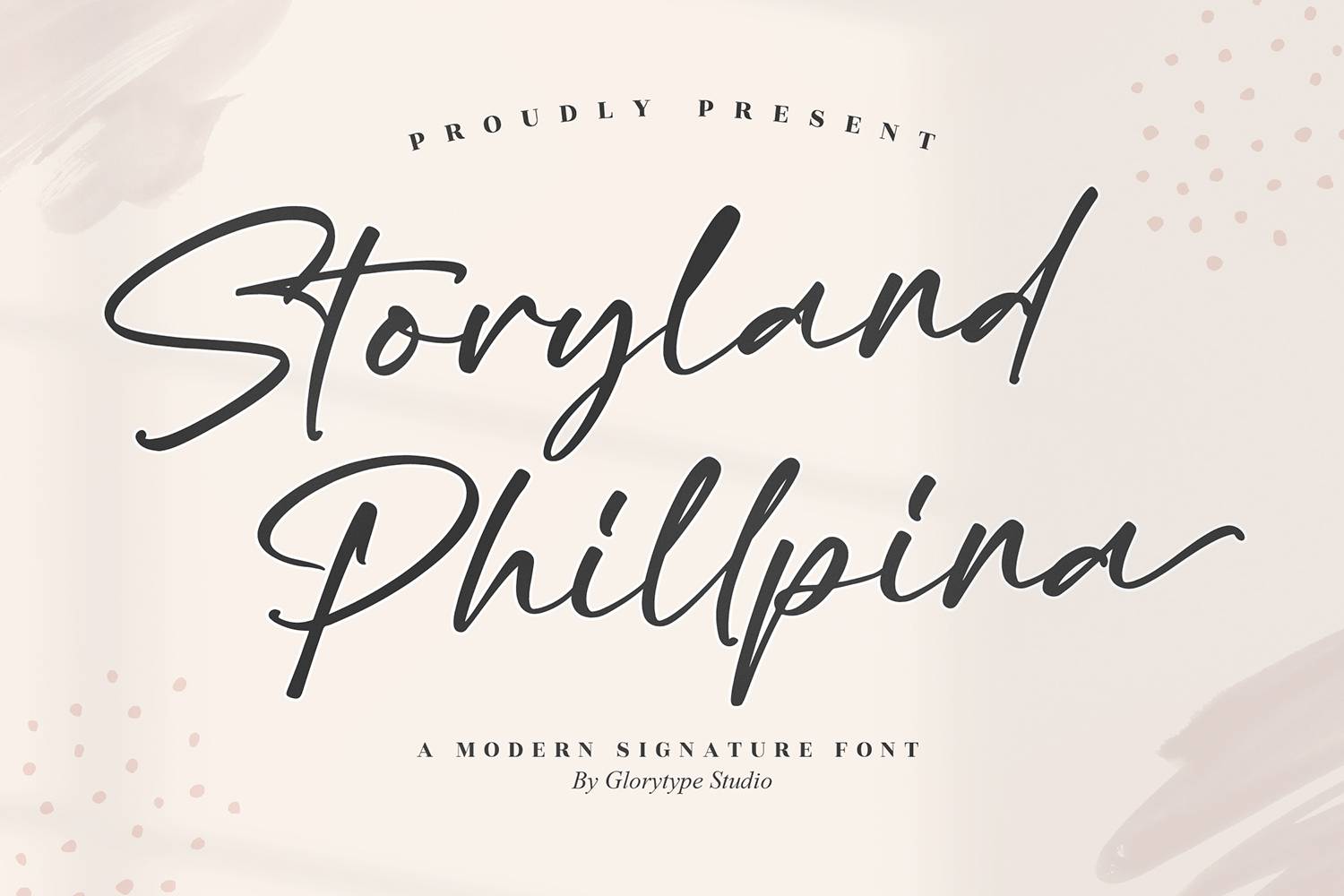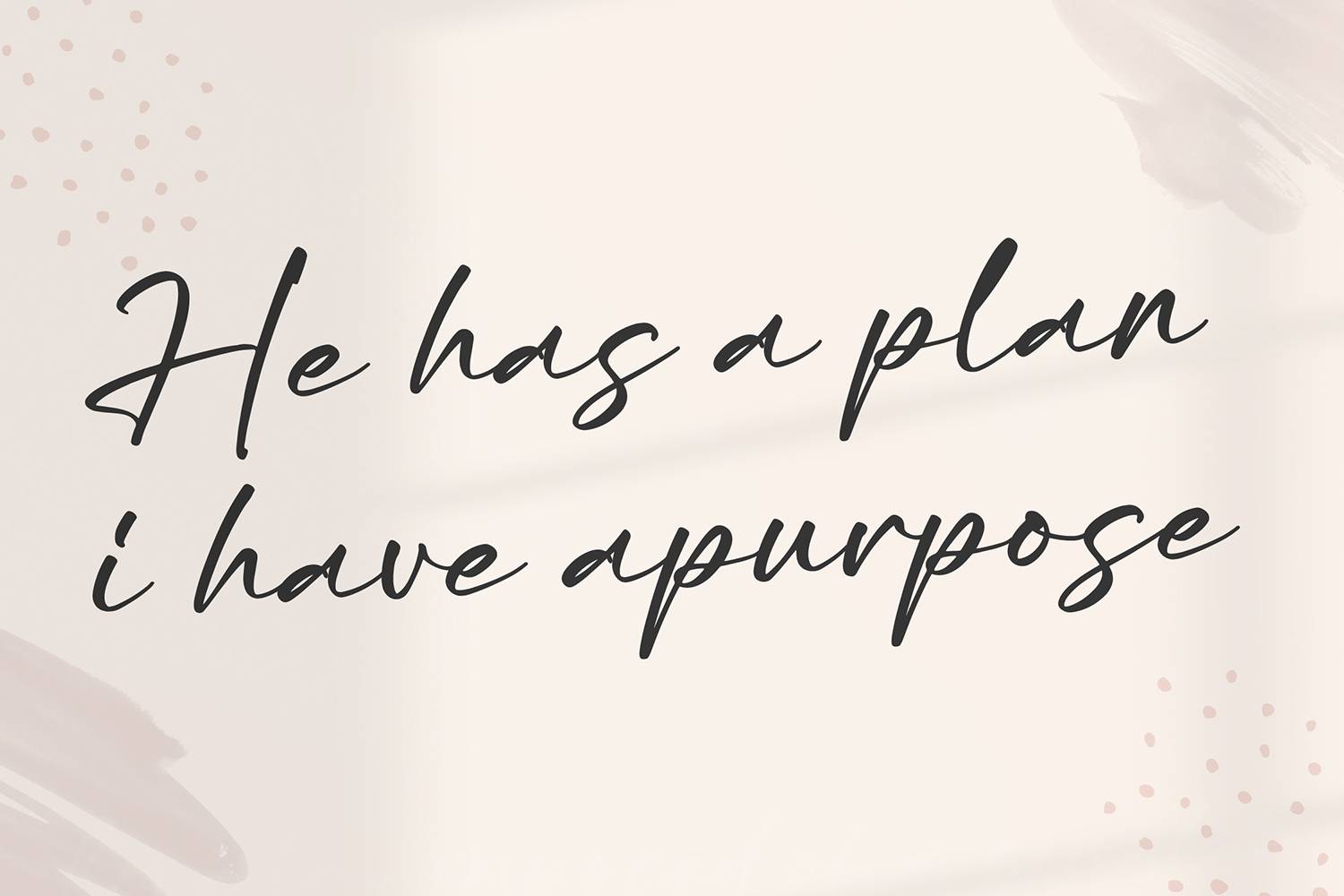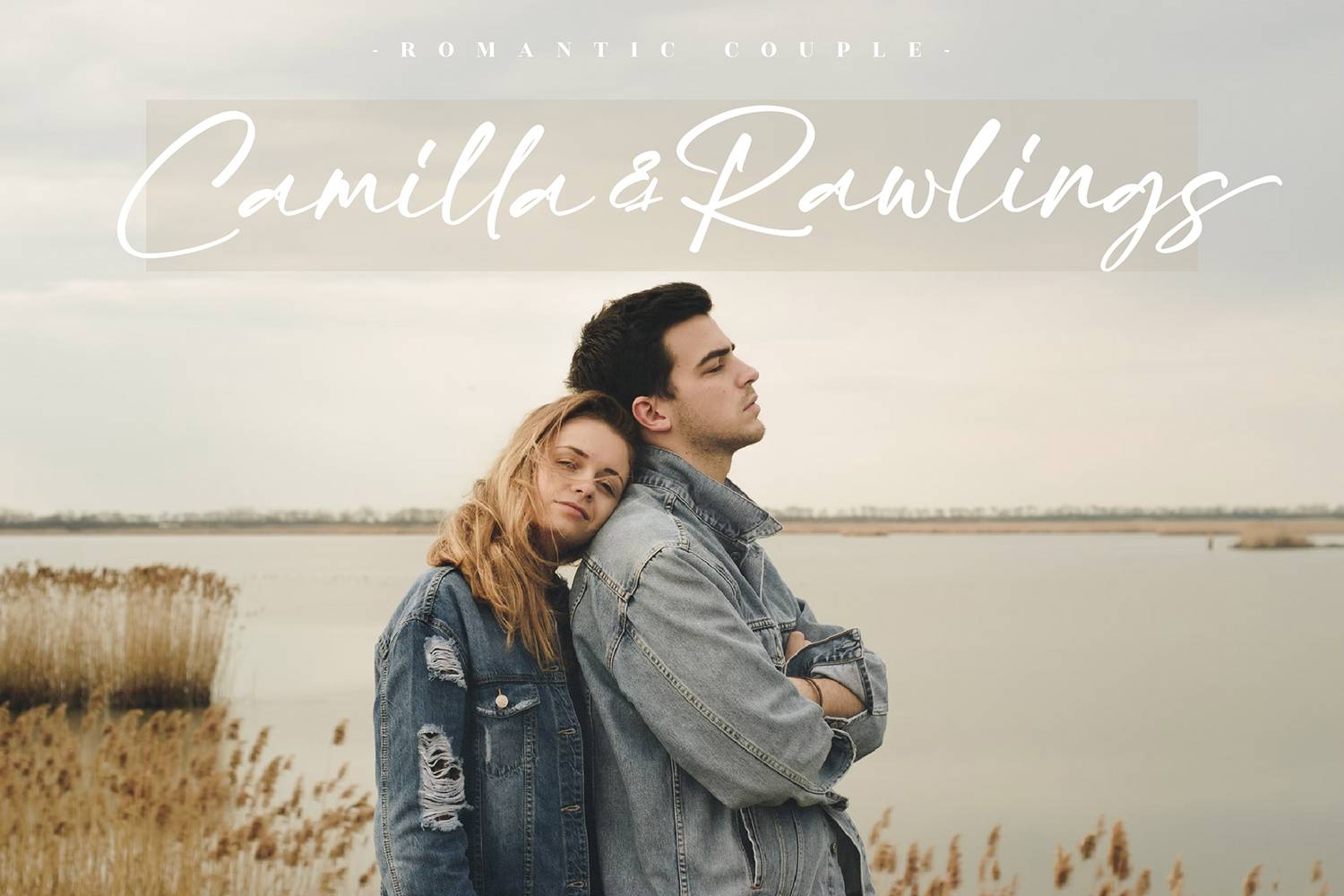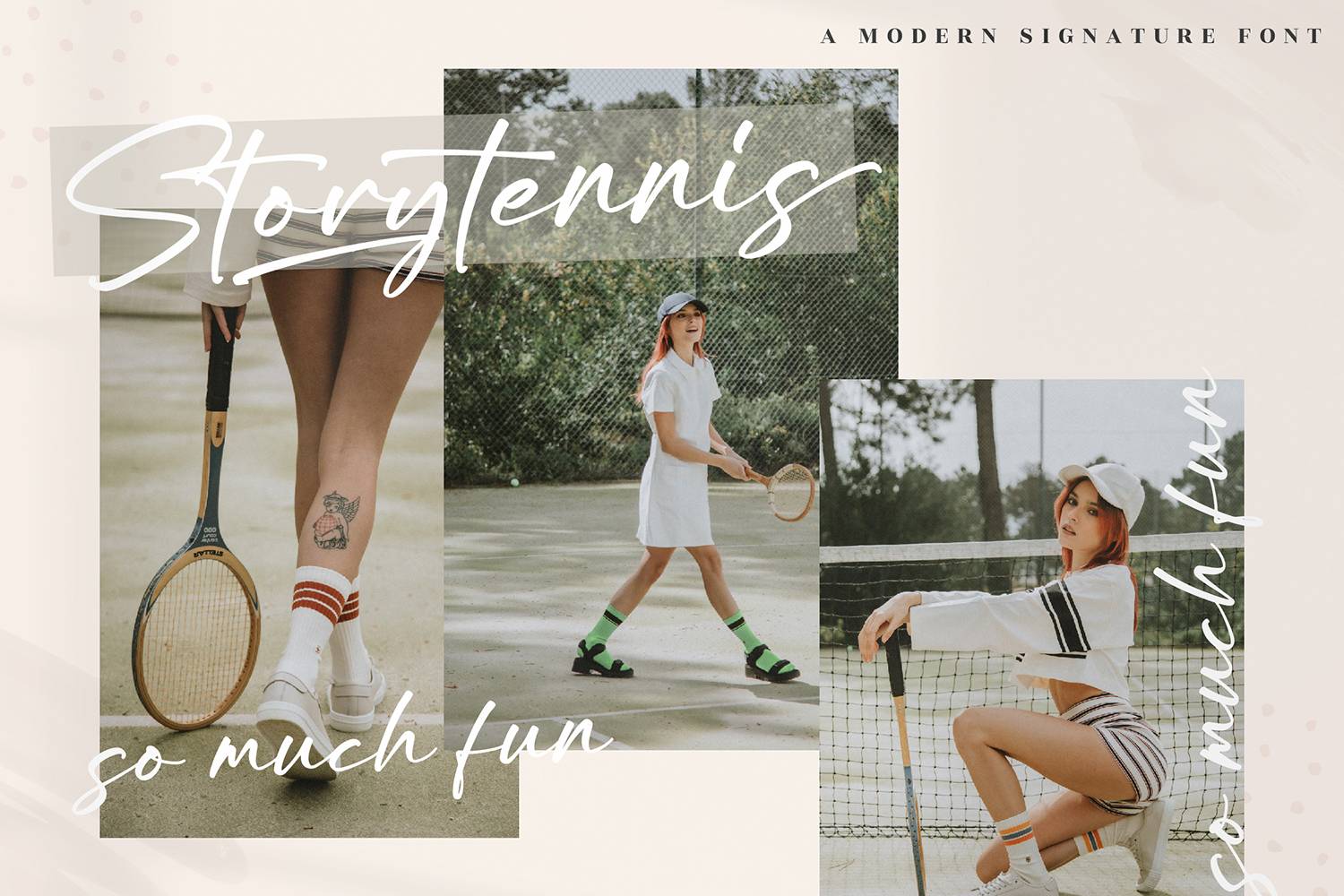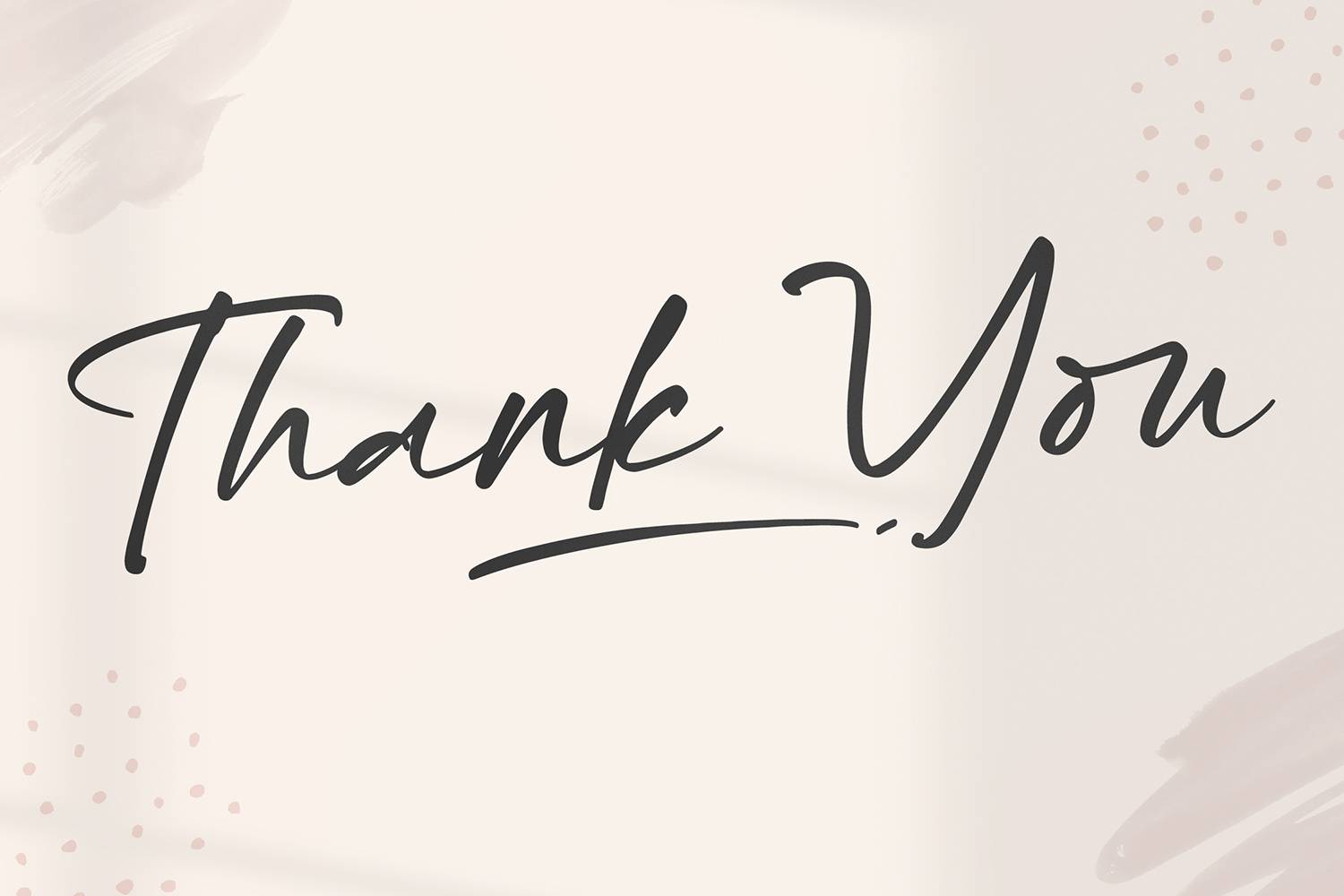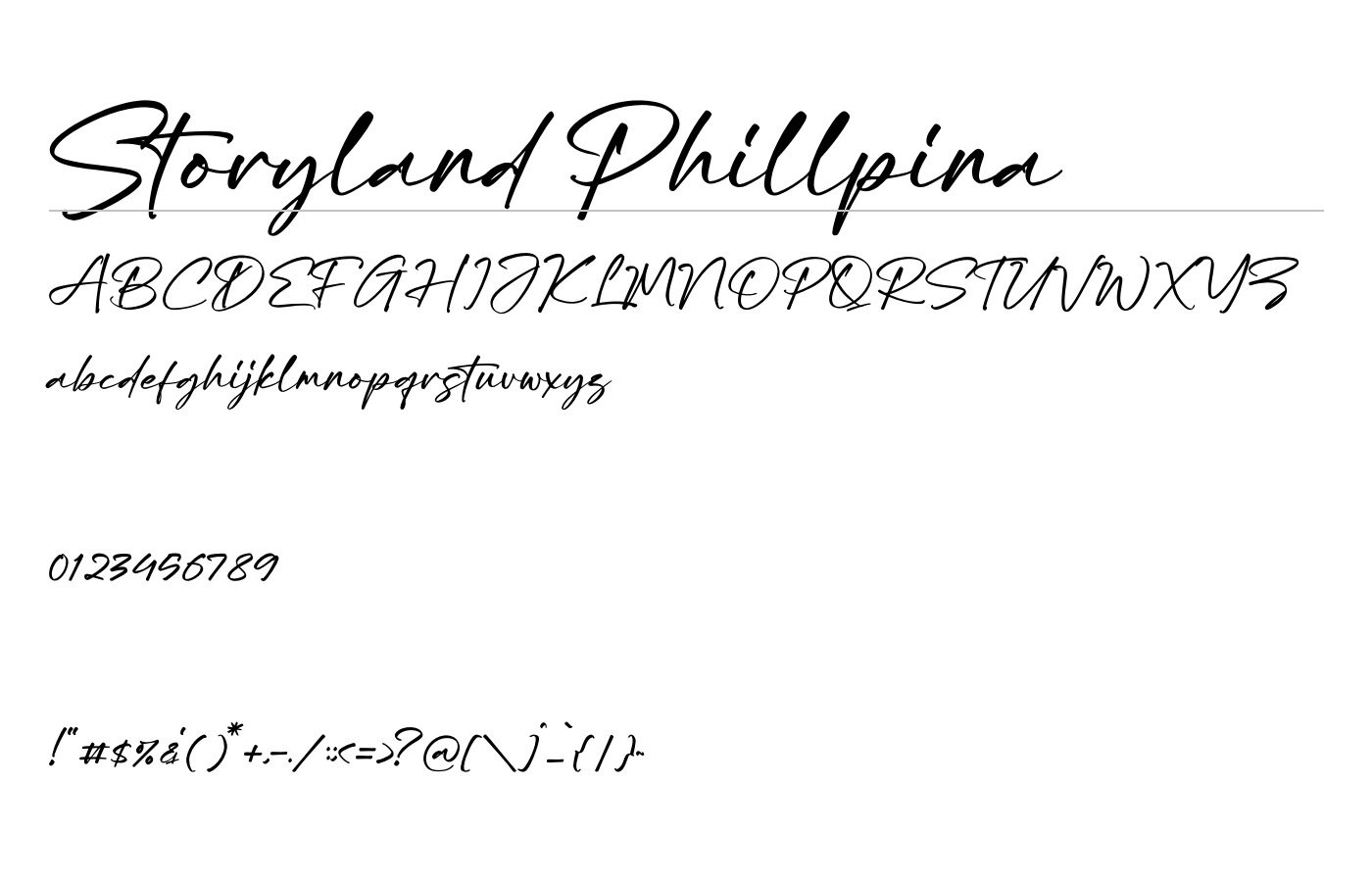
Storyland Phillpina is a graceful script font with a modern, handwritten feel, characterized by smooth, flowing strokes and varying line thickness that add a personal, elegant touch. Its balanced mix of fluid uppercase and lowercase letters makes it perfect for creating inviting, stylish designs suited for branding, invitations, and social media. This font works well where a warm, approachable, yet refined aesthetic is desired.
Storyland Phillpina Font
About Storyland Phillpina Font